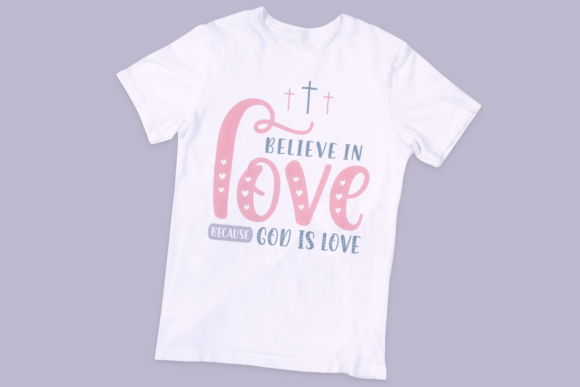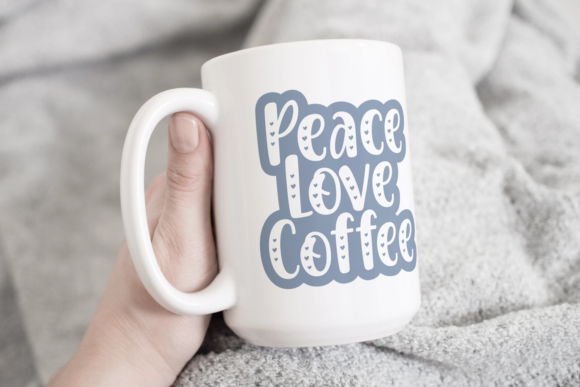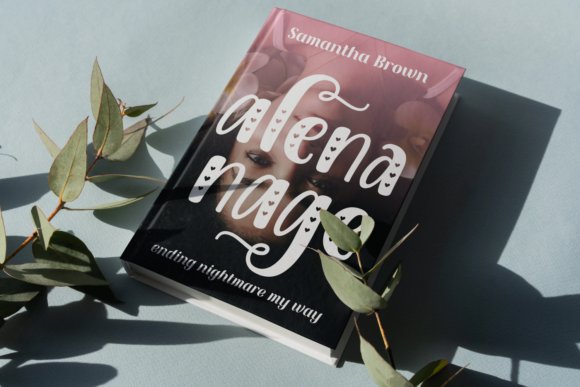
Gelora Cinta Font: Free Download Now
Introduction to Gelora Cinta Font
Gelora Cinta is an incredibly cute and whimsical handwritten font.
This font is perfect for children themed designs, especially when combined with bright colors .
Gelora Cinta Font offers exceptional quality and versatility, making it a valuable addition to your design toolkit. Whether you’re creating for personal projects or commercial use, Gelora Cinta Font delivers professional results.